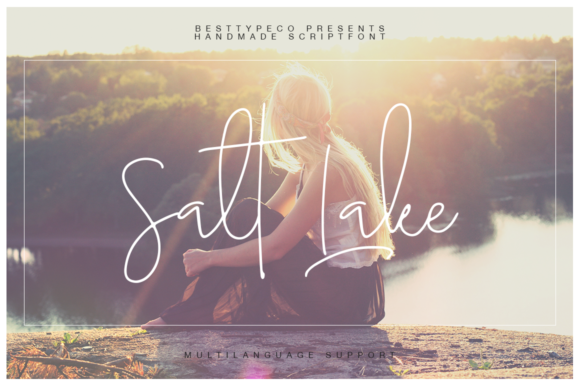
Introducing Salt Lake Font, the epitome of creativity and charm, a stunning script font crafted by the esteemed BennyDesigns. Immerse yourself in the world of exquisite typography with this extraordinary font family, meticulously designed to capture the essence of elegance and fluidity.
Adorned with a modern and feminine allure, Salt Lake Font dances across your designs with grace, leaving a trail of visual harmony. Its beautifully crafted curves and delicate strokes evoke a sense of sophistication and artistry, making it the perfect font for expressing your creative vision.
With its enchanting style, Salt Lake Font lends itself effortlessly to a myriad of design projects, from heartfelt wedding invitations and heartfelt love letters to eye-catching logos and alluring social media posts. Its versatility knows no bounds, seamlessly adapting to any creative endeavor, adding a touch of magic and inspiration to your work.
Step into a world of captivating designs with Salt Lake Font. Unleash your boundless creativity and weave tales of elegance and beauty. Its graceful presence will elevate your artistic expression to new heights, leaving an unforgettable impression on all who encounter your creations.